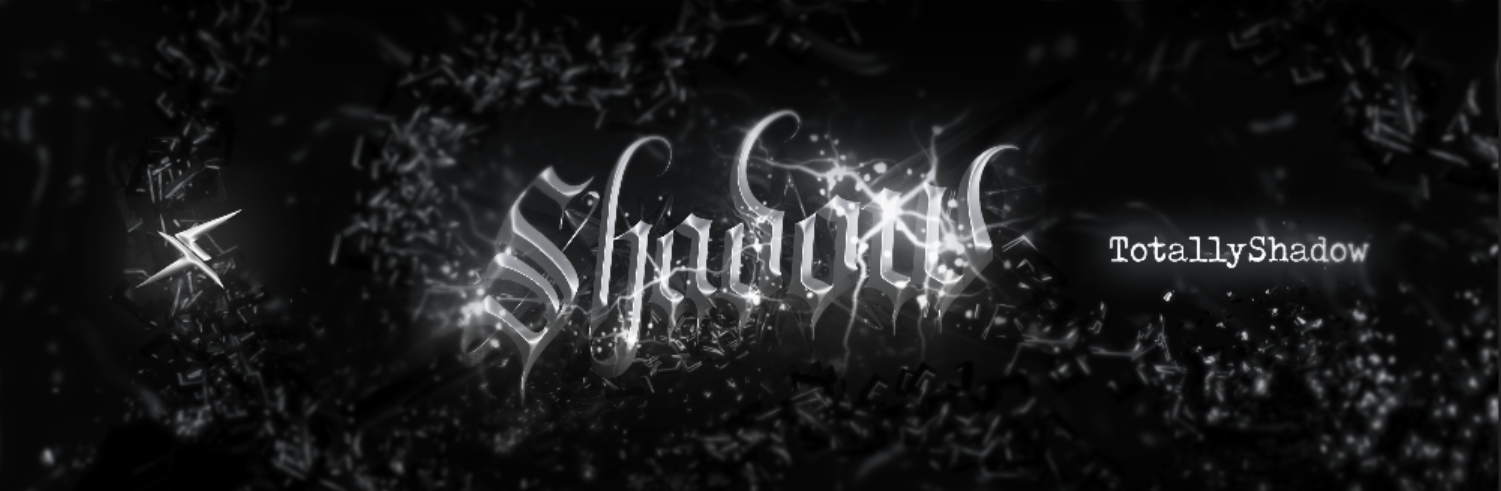
FontTextUp is a powerful online tool that allows users to create stunning typography designs with ease. One of its many features is the silver font effect generator, which can add a touch of elegance and sophistication to any text.
With the silver font effect generator, users can choose from a variety of font styles and sizes, and customize the color, shading, and texture of the text to create a unique silver effect. The tool also offers several additional customization options, including the ability to adjust the opacity and thickness of the silver effect, and to add shadows and other special effects.
Whether you're creating a logo, designing a website, or just adding some flair to your social media posts, the silver font effect generator on FontTextUp is an excellent choice for adding a touch of style and sophistication to your text.